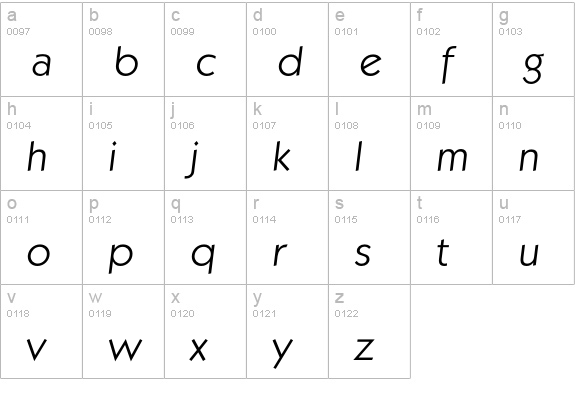
Koblenz-LightIta is a modern and elegant typeface that brings a touch of sophistication to any design project. With its sleek lines and stylish curves, this font is perfect for conveying a sense of elegance and refinement. The light weight of the font gives it a delicate and airy appearance, making it ideal for use in headlines, logos, and branding materials. One of the best things about Koblenz-LightIta is that it is completely free to download. You can easily access this beautiful font at FontsMarket.com and start using it in your projects right away. Whether you're working on a website, a poster, or a business card, Koblenz-LightIta will add a touch of class and style to your designs. Don't miss out on the opportunity to enhance your work with this stunning typeface – download Koblenz-LightIta today and see the difference it can make!